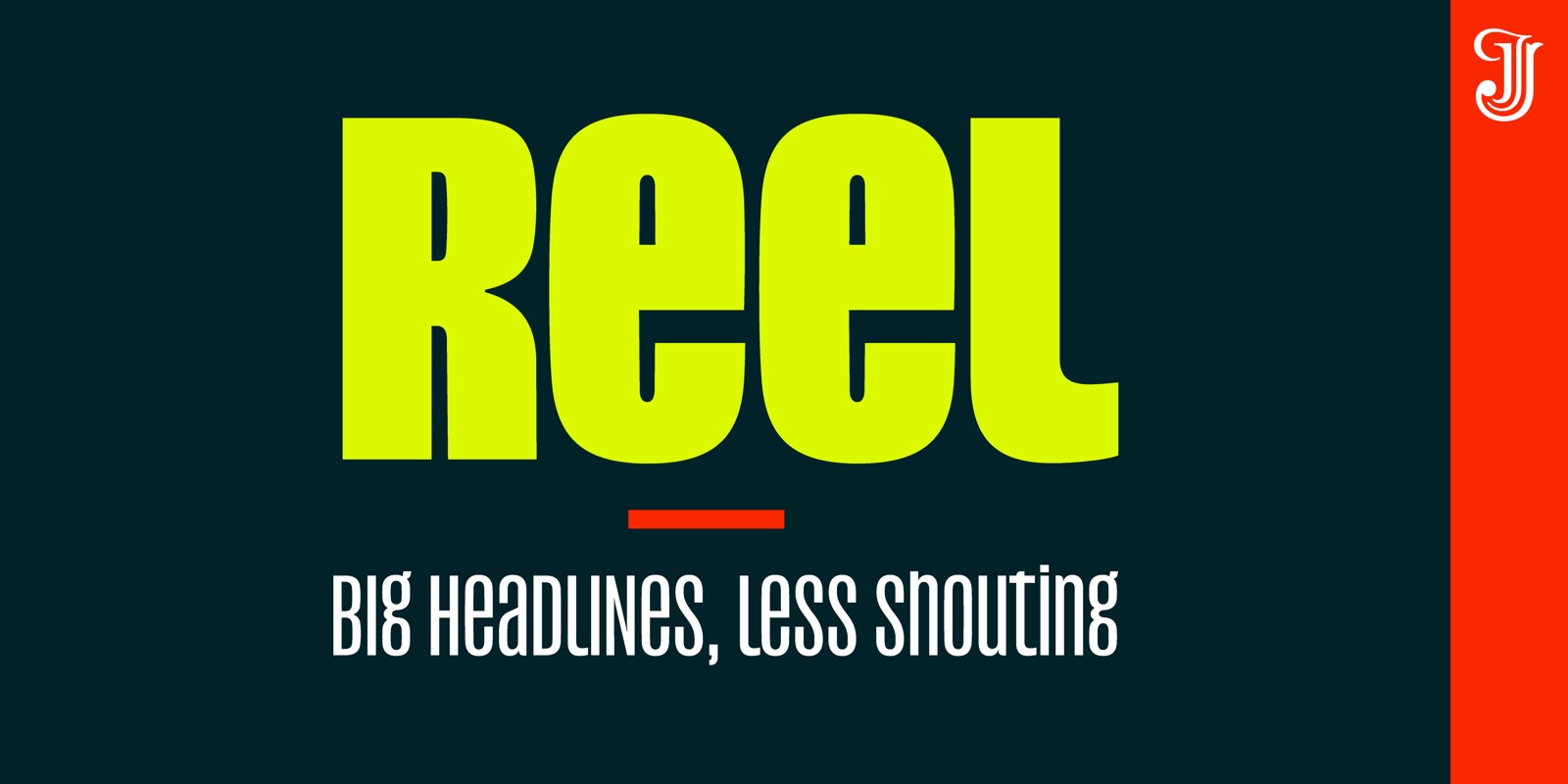
Reel Font Family
Reel Font Family is a professionally designed typeface that delivers clarity, structure, and consistent performance across various design applications. Reel is a condensed headline typeface that brings lowercase letters to the same height and visual presence as capitals, giving designers greater expressive control over titles without sacrificing the neat, rectangular structure of ALL CAPS typography.
Create strong, structured headlines without shouting
Mix upper and lowercase to soften and sharpen tone
Choose weight and height to fit titles neatly into any space